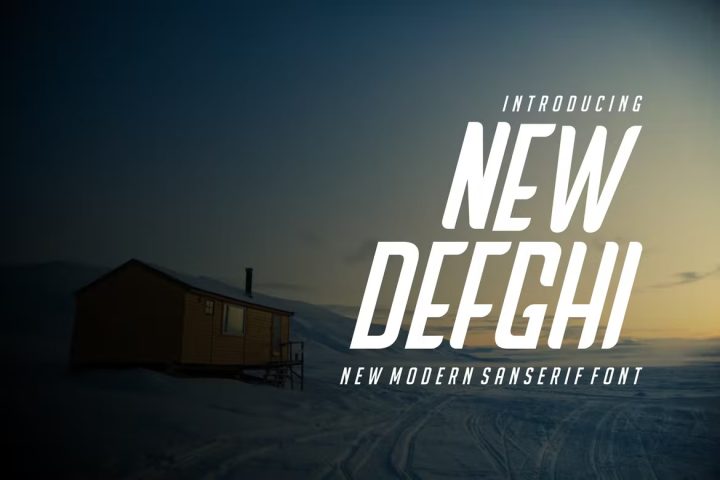
New Defghi Font
Introducing our new product New Defghi Font – Modern Font
New Defghi Font- Modern Font is a bold and authentic display font. The font is suitable for any branding project like logo, t-shirt printing, esport, and many more. outstanding in a wide range of contexts.